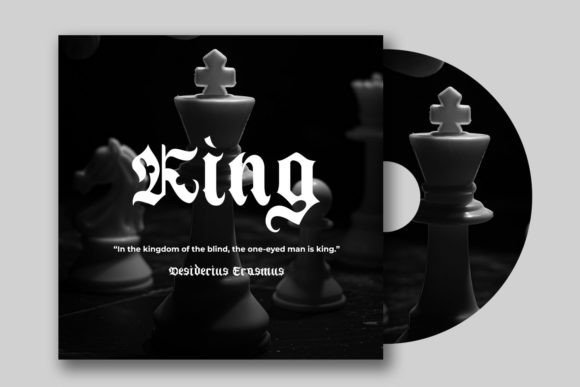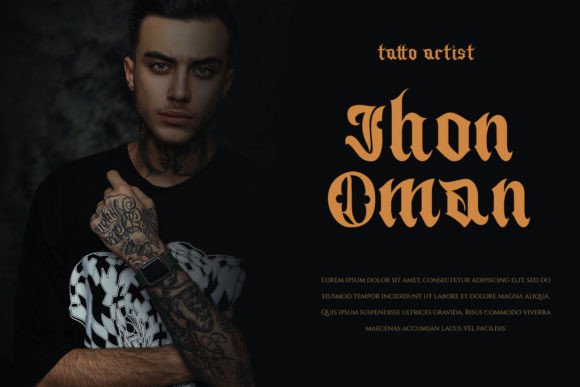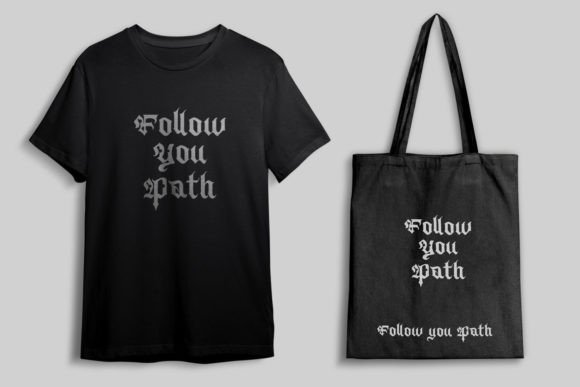
Unleash the Mystique of Blackrecord Font: A Timeless Blackletter Typeface
Are you a designer or crafter seeking a font that embodies the essence of medieval mystique and timeless allure? Look no further than Blackrecord Font, a captivating blackletter typeface that is sure to elevate your creative projects. With its unique blend of historical and modern aesthetics, this font is perfect for a wide range of applications, from tattoo studios and band logos to book covers, game design, and packaging.
A Font Steeped in History and Mystery
Blackrecord Font is a masterful recreation of traditional blackletter typography, with intricate details and ornate flourishes that evoke the mystique of medieval times. The font’s design is characterized by dramatic swashes, sharp serifs, and elegant connections, creating a sense of drama and sophistication. Whether you’re looking to add a touch of nostalgia or create a bold, eye-catching design, Blackrecord Font is the perfect choice.
One of the key benefits of Blackrecord Font is its versatility. This font can be used in a wide range of creative projects, including:
- Tattoo Studios: Create stunning tattoo designs with a unique, medieval-inspired flair.
- Band Logos and Album Art: Give your music a bold, edgy look with a font that’s perfect for rock, metal, and Gothic-inspired designs.
- Fashionable Apparel: Add a touch of elegance and sophistication to your clothing and accessory designs.
- Book Covers: Create eye-catching book covers that evoke the mystique of ancient tomes.
- Game Design: Add a touch of medieval flair to your game designs, from character names to menu screens.
- Packaging: Create stunning packaging designs that stand out on store shelves.
- Standard Character Set: A-Z and a-z, numerical, and functional characters.
- Alternate Ligature: A range of alternate characters and ligatures to add variety and personality to your designs.
Why Choose Blackrecord Font?
So why choose Blackrecord Font for your creative projects? Here are just a few reasons:
- Unique and Eye-Catching: Blackrecord Font is a truly unique and eye-catching typeface that will set your designs apart from the crowd.
- Versatile: This font can be used in a wide range of creative projects, from tattoo designs to book covers.
- High-Quality: Blackrecord Font is a high-quality font designed to produce crisp, clear results at any size.